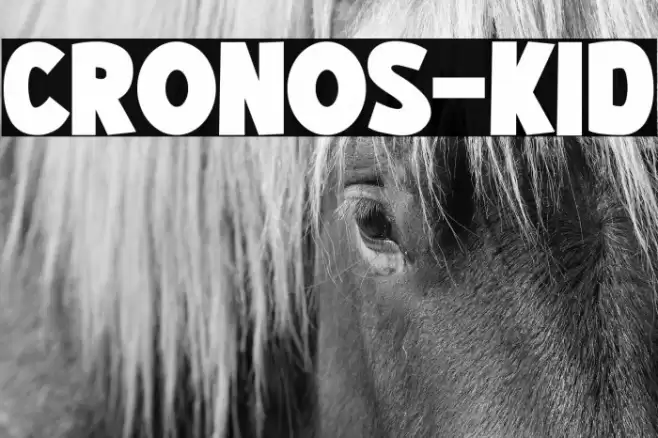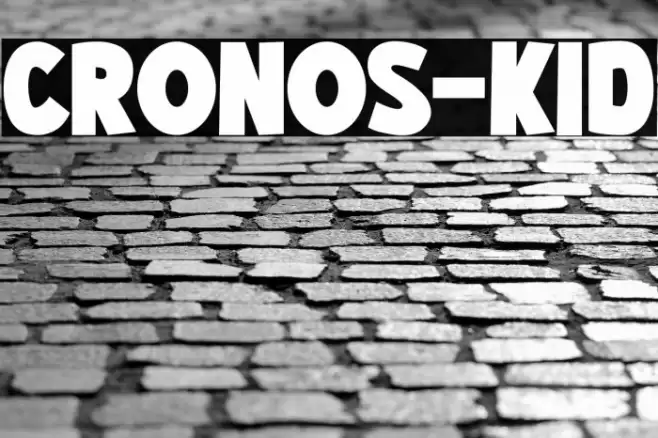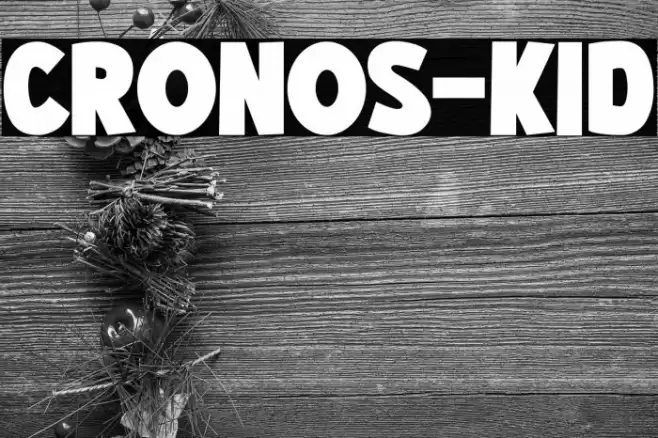
CRONOS-KID Font
CRONOS-KID Description
This font features bold, playful characters with a strong presence, making it ideal for capturing attention. The letters are rounded and slightly irregular, giving them a whimsical and friendly appearance. The uppercase and lowercase letters maintain a consistent style, with a slight tilt that adds to the dynamic feel. Numbers and special characters are equally bold and expressive, ensuring readability and impact. The overall design is modern yet playful, suitable for a variety of creative projects.
A bold, playful font with rounded, slightly irregular characters from Uncategorized fonts.
- Proposed Projects: Ideal for children's books, playful branding, posters, and creative advertising.
- Overall Style: Playful, Modern